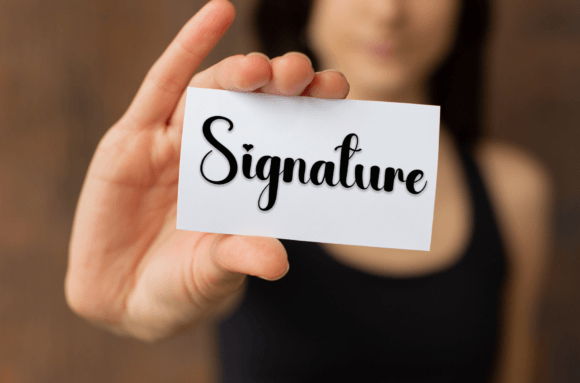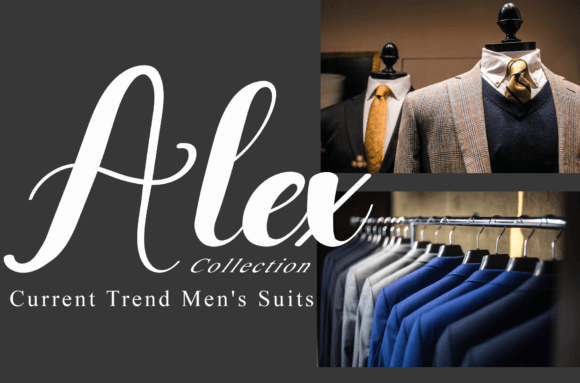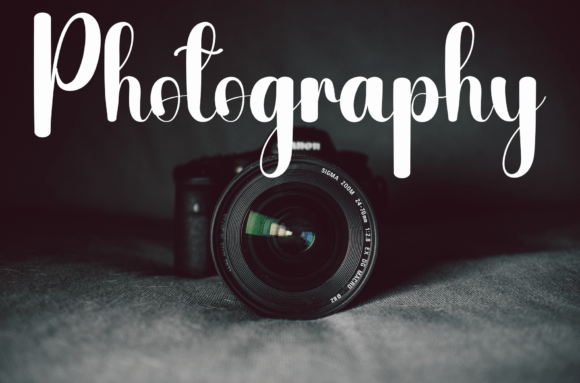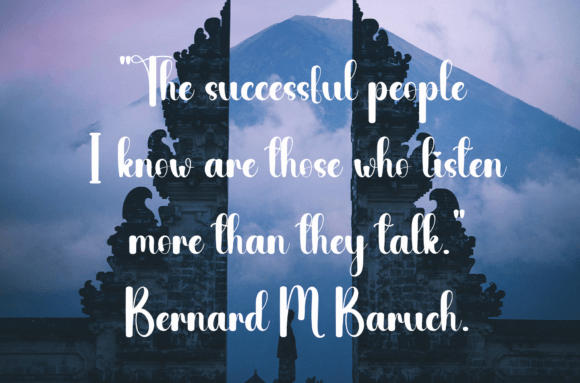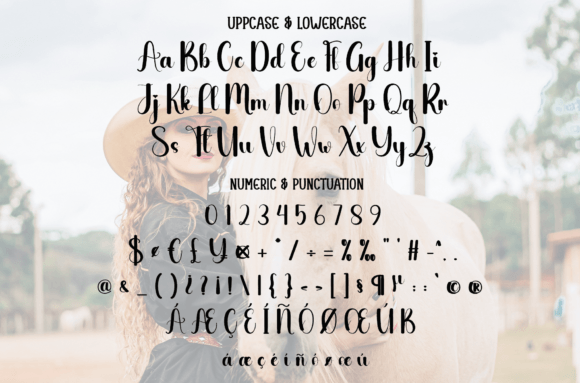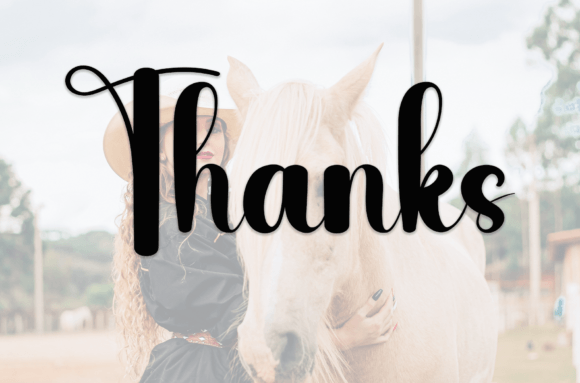
Introduction to Paddock Font
Paddock is a sweet and friendly handwritten font.
Fresh and neat, this font is ideal for writing wedding invitations, cards, or any other design that might need a fun touch .
Paddock Font offers exceptional quality and versatility, making it a valuable addition to your design toolkit. Whether you’re creating for personal projects or commercial use, Paddock Font delivers professional results.